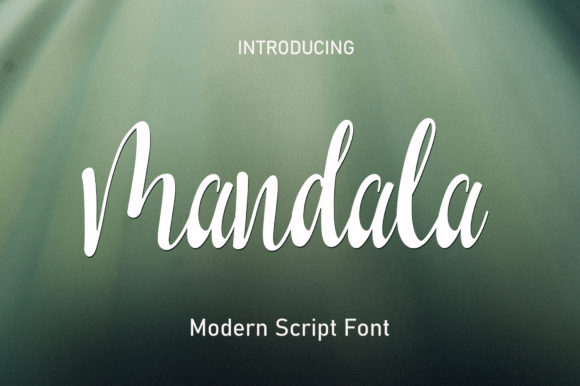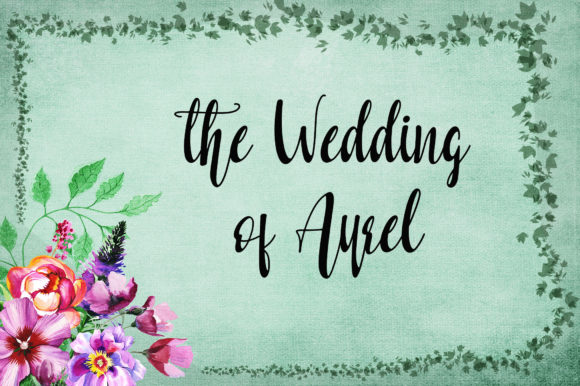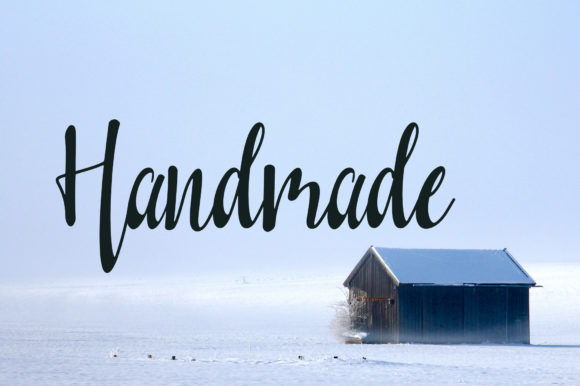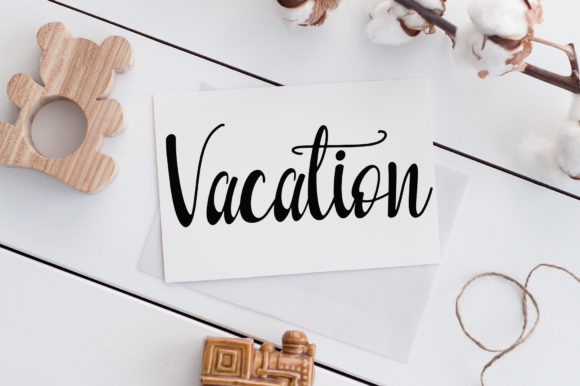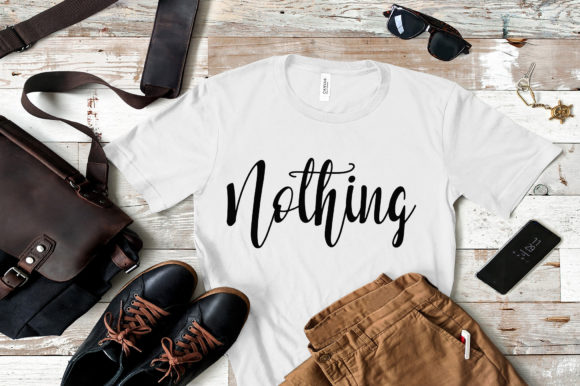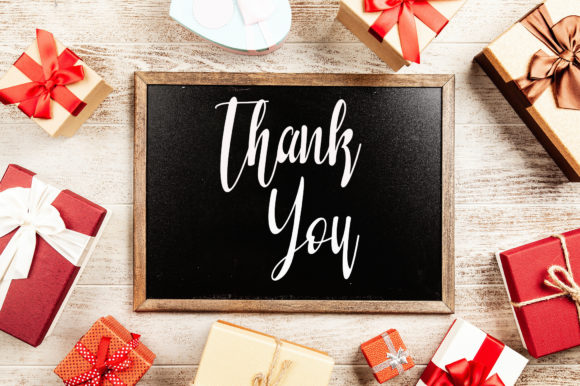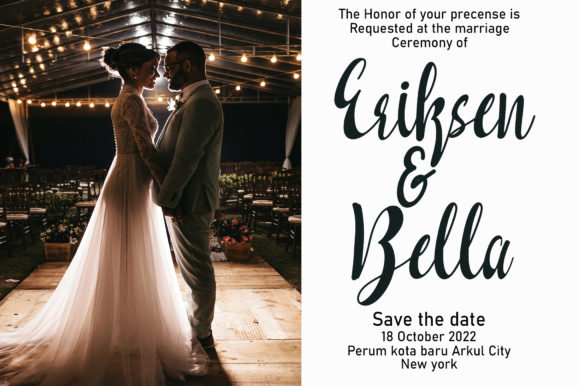
Mandala Font
About Mandala Font
Mandala is an exquisite handwritten font that seamlessly combines the timeless elegance of calligraphy with a contemporary and fresh twist. Its carefully crafted design showcases a perfect balance between classic and modern influences, making it a font that effortlessly captures attention and stands out in any design project.
The graceful curves and delicate strokes of Mandala’s characters reflect its classy calligraphic origins, while the subtle nuances and unique details add a touch of modernity to the font. This combination of elements creates a harmonious and captivating visual experience that appeals to a wide range of design sensibilities.
One of the standout features of Mandala is its PUA encoding. This encoding allows you to easily access a treasure trove of alternate glyphs, ligatures, and swashes, enhancing your creative possibilities and enabling you to infuse your designs with a personalized and distinctive touch. Whether you’re working on wedding invitations, logos, branding materials, or any other project that requires a touch of elegance and sophistication, Mandala’s versatility shines through.
The font’s exquisite design makes it a true favorite among designers who appreciate the beauty of calligraphy and desire a font that effortlessly elevates their creations. Whether used for headline text, body copy, or decorative accents, Mandala’s ability to maintain its classic charm while adapting to modern design trends is what sets it apart and makes it a valuable asset for any creative endeavor.
In summary, Mandala is more than just a font – it’s a masterpiece that embodies the best of both classic calligraphy and contemporary design. Its PUA encoding further enhances its appeal by granting you easy access to a wide range of creative options. With Mandala in your toolkit, you have the power to infuse your projects with an exquisite and timeless touch that leaves a lasting impression on viewers.